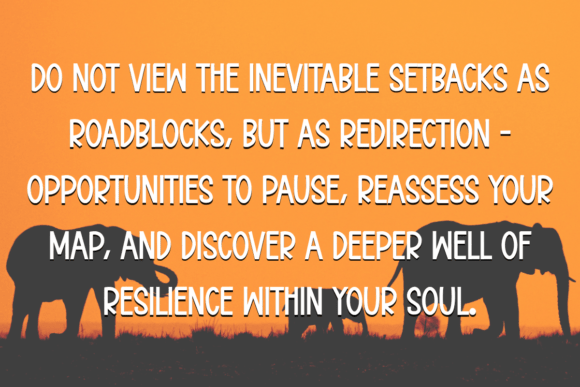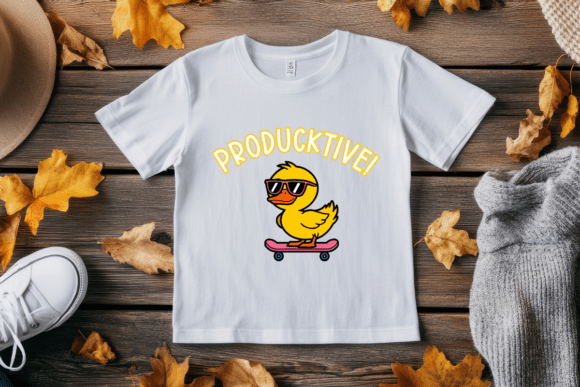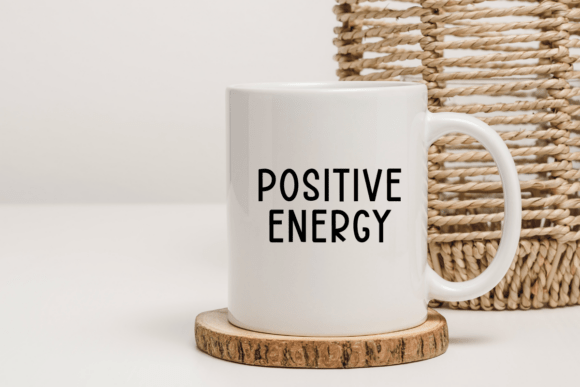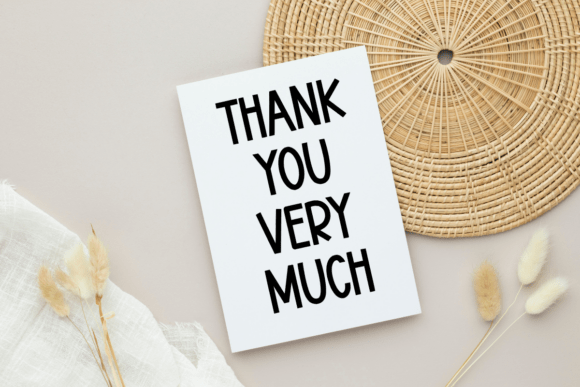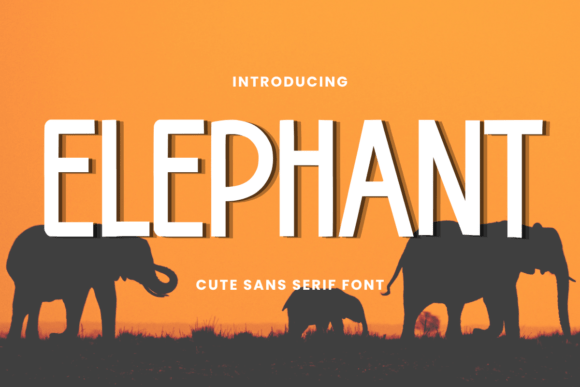
Introducing Elephant Font: The Ultimate Display Font for High-Impact Designs
Are you looking for a font that makes a statement? Something that exudes confidence, boldness, and a commanding presence? Look no further than Elephant Font, a striking, extra-tall sans serif display font that’s perfect for designers and crafters who want to create high-impact titles, logos, and brand identities.
What Makes Elephant Font Stand Out?
Elephant Font boasts exaggerated vertical proportions and crisp lines, giving it a contemporary, architectural feel that’s sure to turn heads. But what really sets it apart is the subtle, humanistic touch added by the slight variations in stroke width. This prevents the font from feeling too rigid or mechanical, making it perfect for designs that need a bold, yet approachable aesthetic.
The Perfect Choice for High-Impact Designs
Elephant Font is designed to dominate any design project. Its bold, confident, and instantly memorable style makes it the perfect choice for:
• Posters: Create eye-catching posters that grab attention and leave a lasting impression.
• Movie Titles: Add a touch of grandeur and sophistication to your movie titles with Elephant Font.
• Athletic and Apparel Logos: Create bold, dynamic logos that exude confidence and performance.
• Food and Beverage Packaging: Establish a strong brand identity with Elephant Font’s monumental and graphic aesthetic.
Comprehensive Font Features
Elephant Font is more than just a pretty face. It features a complete set of glyphs for:
• Upper and lower case letters
• Numbers
• Extensive punctuation
This means you can use Elephant Font for a wide range of design projects, from simple titles to complex layouts.
Why Choose Elephant Font?
So why choose Elephant Font over other display fonts? Here are just a few reasons:
• Uniqueness: Elephant Font’s exaggerated vertical proportions and subtle variations in stroke width make it truly unique.
• Versatility: With its comprehensive set of glyphs, Elephant Font can be used for a wide range of design projects.
• Impact: Elephant Font is designed to make a statement, making it perfect for high-impact designs that need to grab attention.
Tips for Using Elephant Font
Here are a few tips for getting the most out of Elephant Font:
• Use it sparingly: Elephant Font is bold and attention-grabbing, so use it sparingly to avoid overwhelming your design.
• Experiment with colors: Elephant Font looks great in bold, bright colors, so don’t be afraid to experiment.
• Pair it with a complementary font: Pair Elephant Font with a complementary font to create a bold, yet harmonious design.
Elephant Font is a powerful, commanding display font that’s perfect for designers and crafters who want to create high-impact designs. With its unique combination of exaggerated vertical proportions, crisp lines, and subtle variations in stroke width, Elephant Font is sure to turn heads. Whether you’re creating posters, movie titles, athletic and apparel logos, or food and beverage packaging, Elephant Font is the perfect choice.